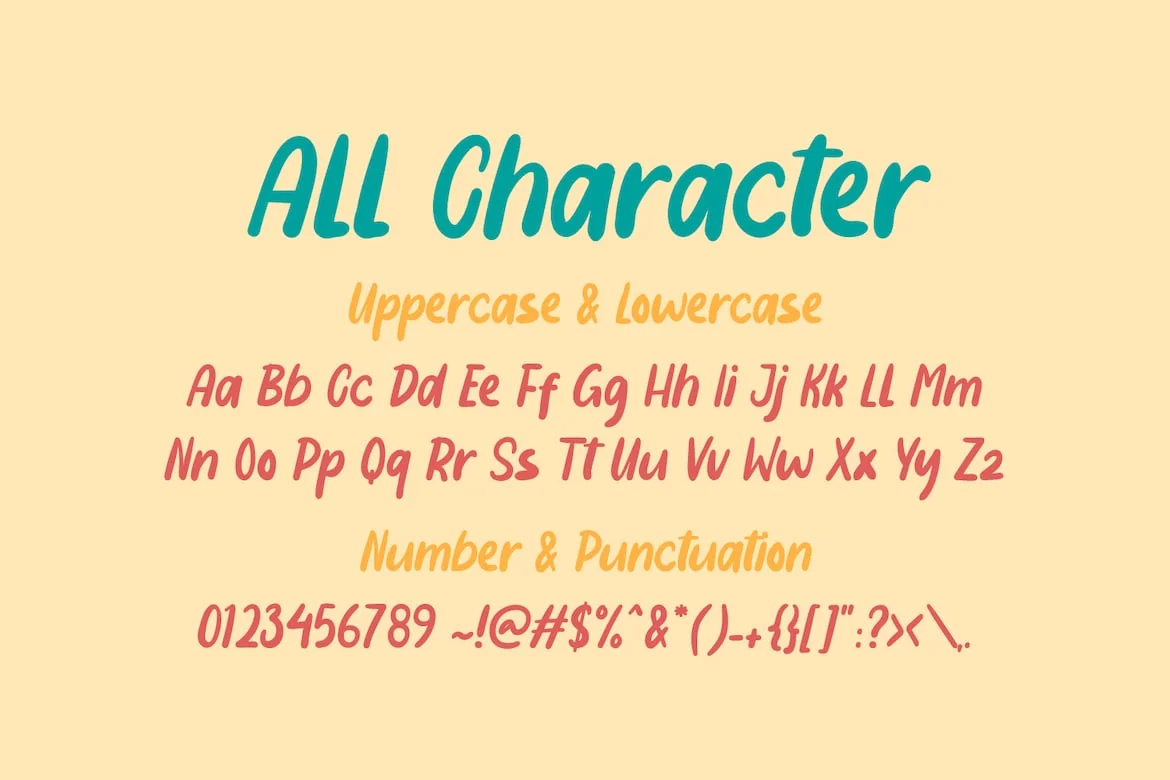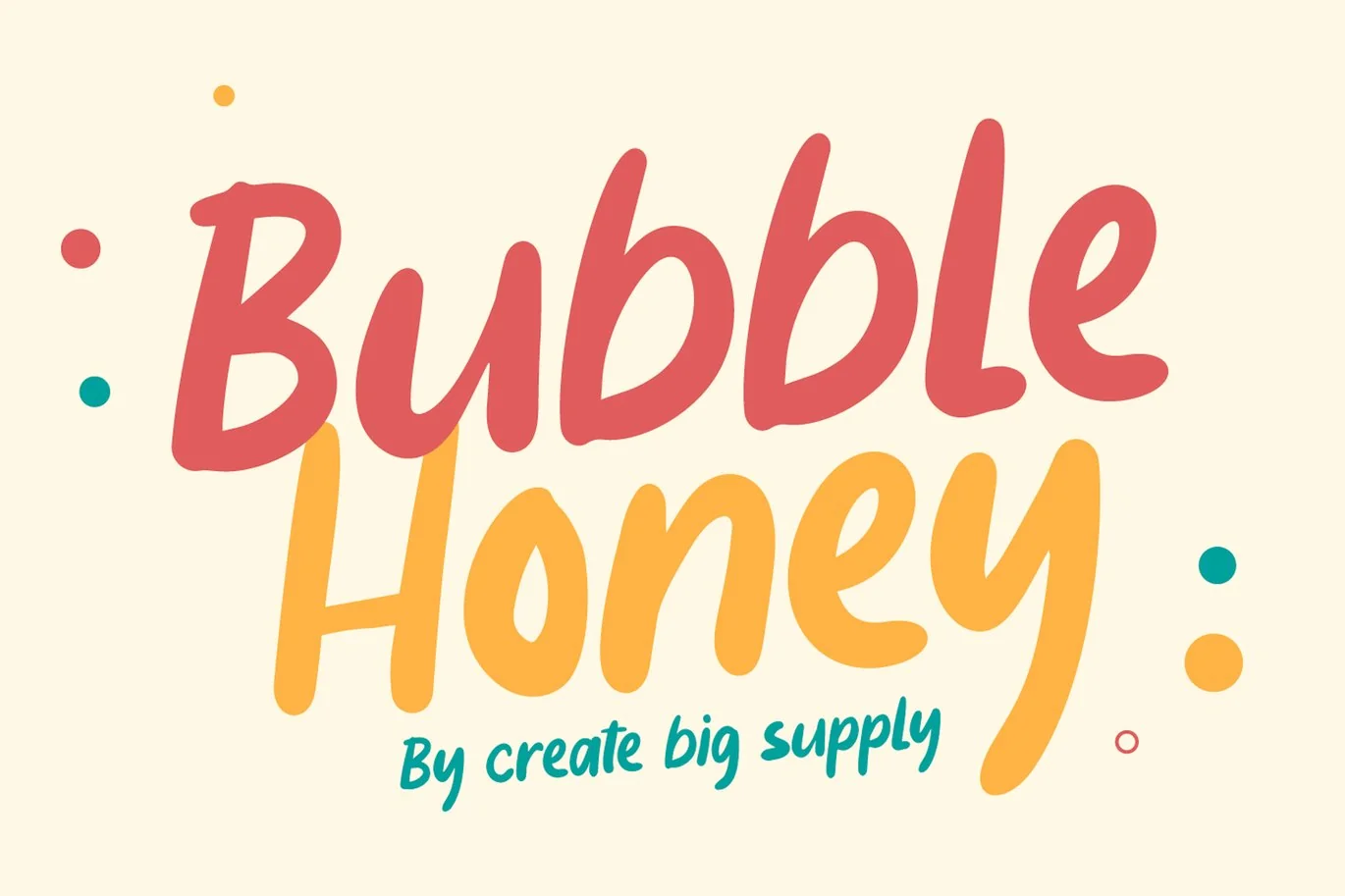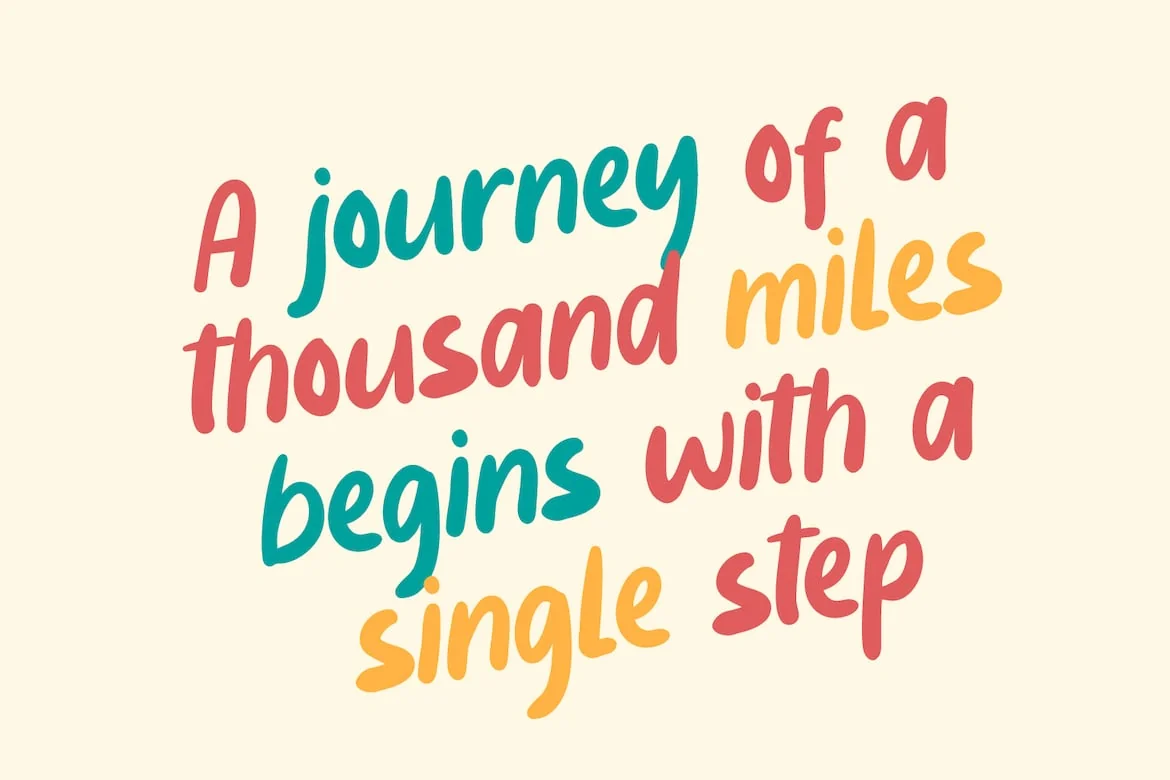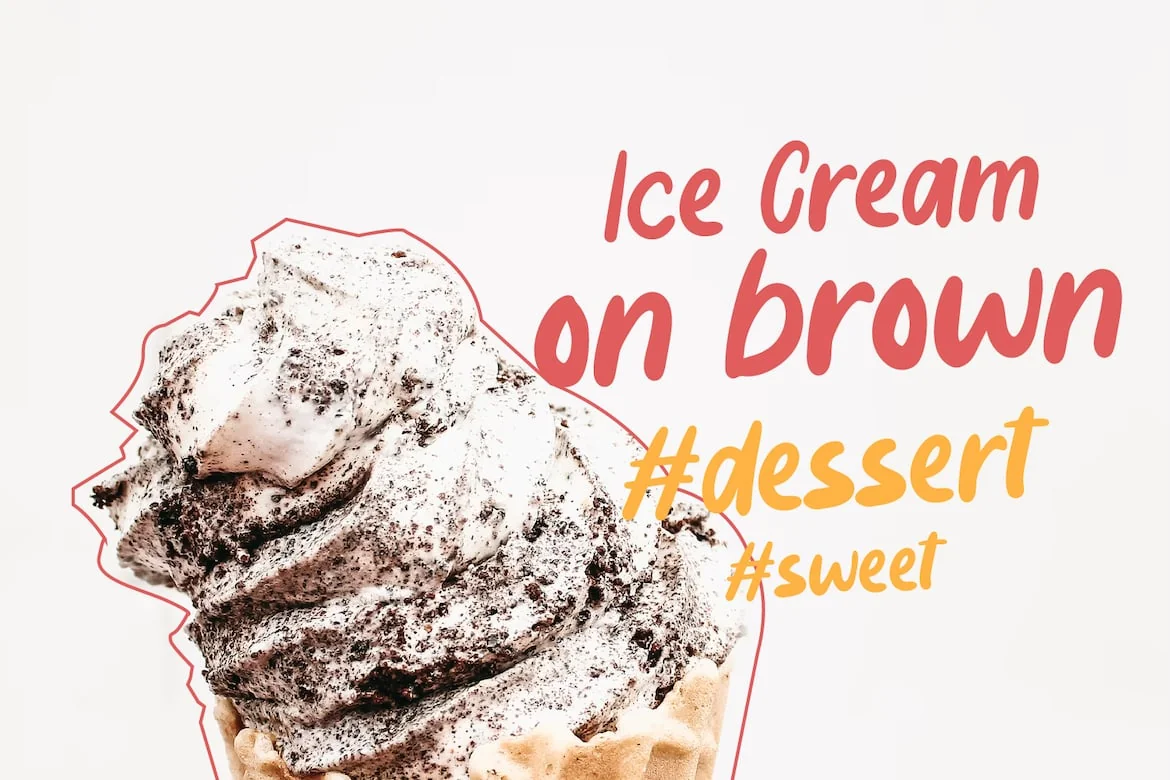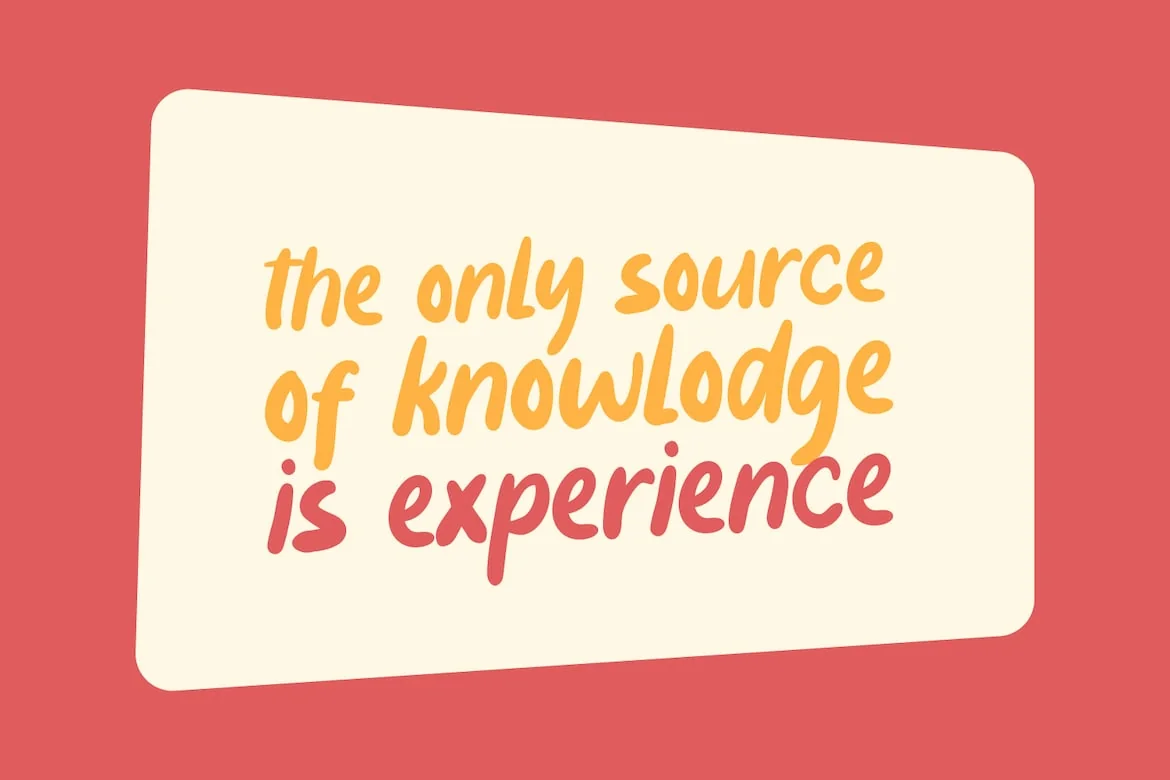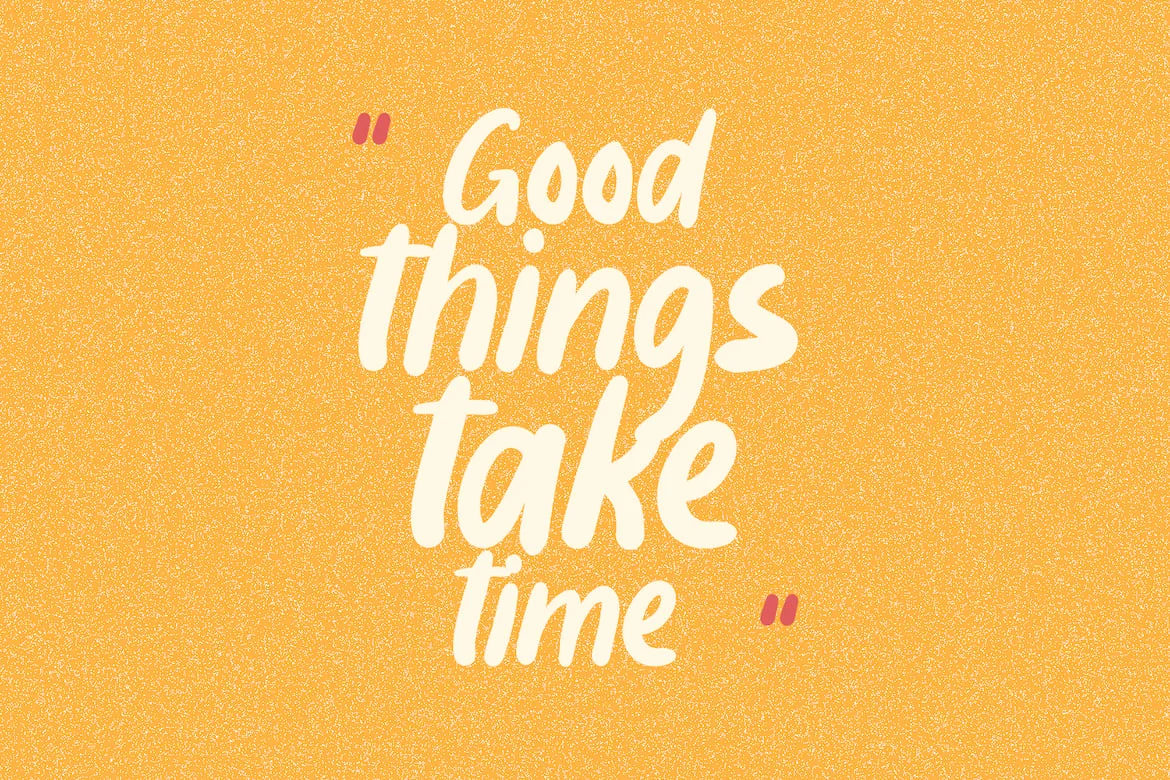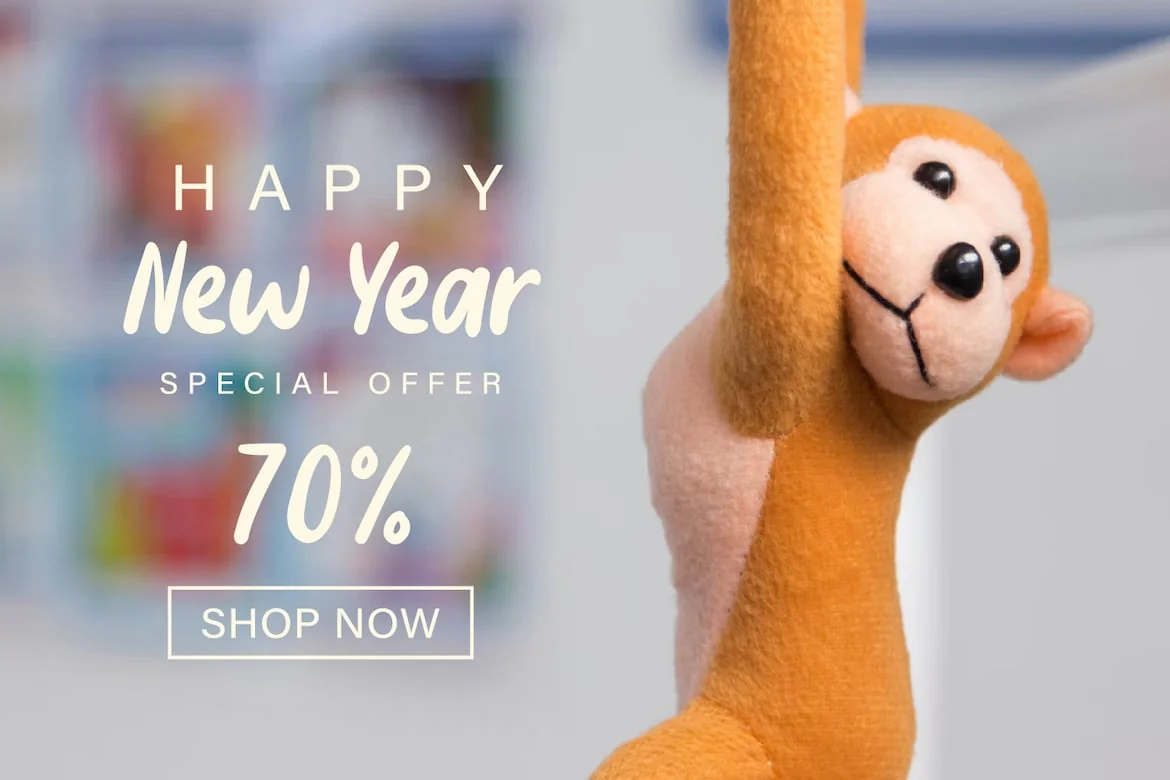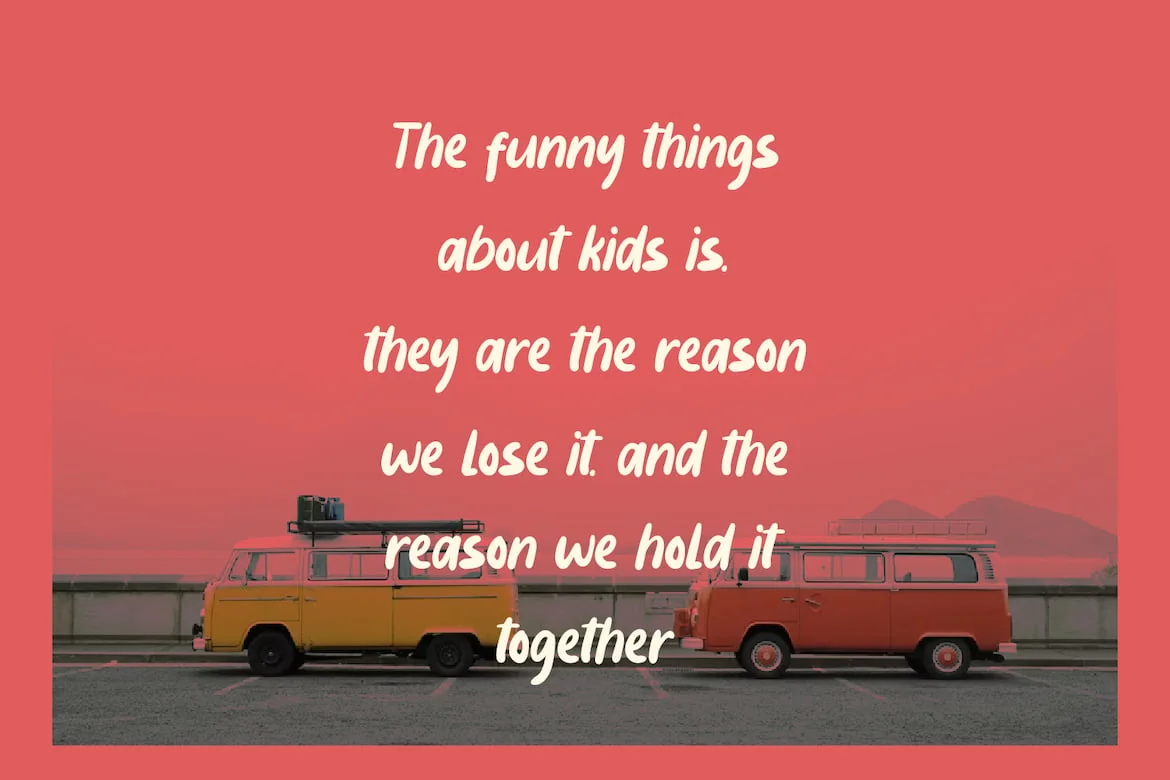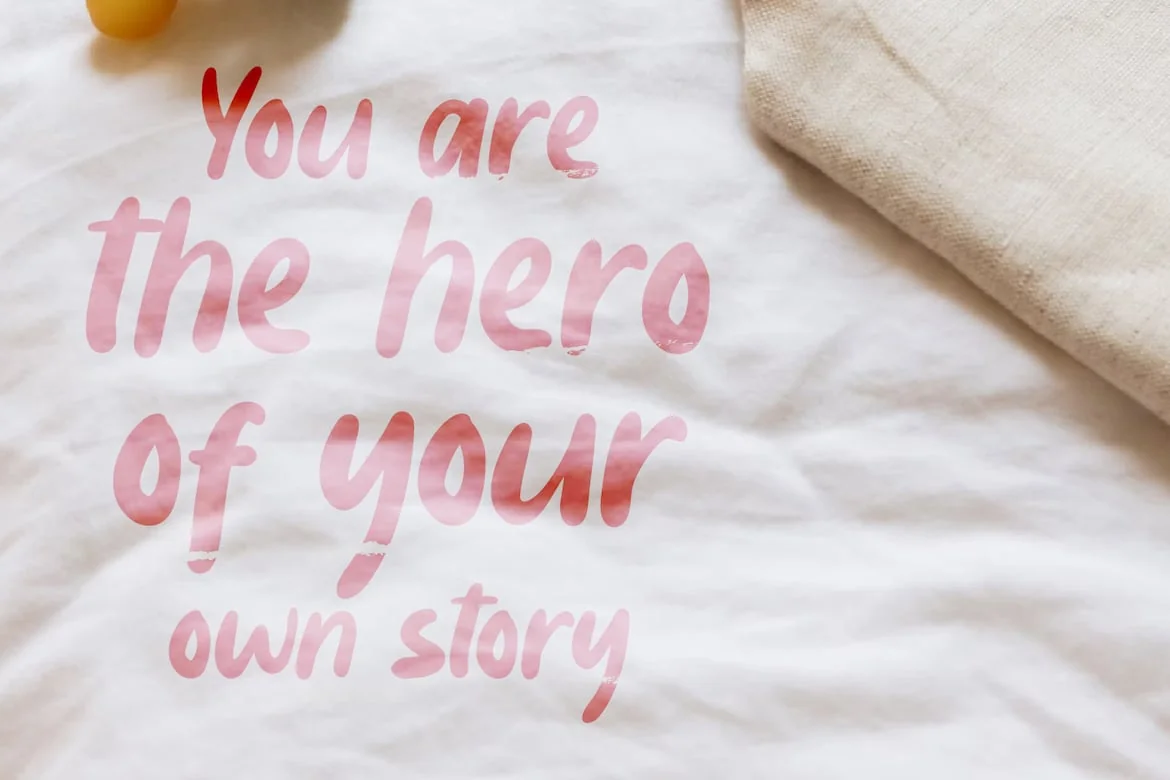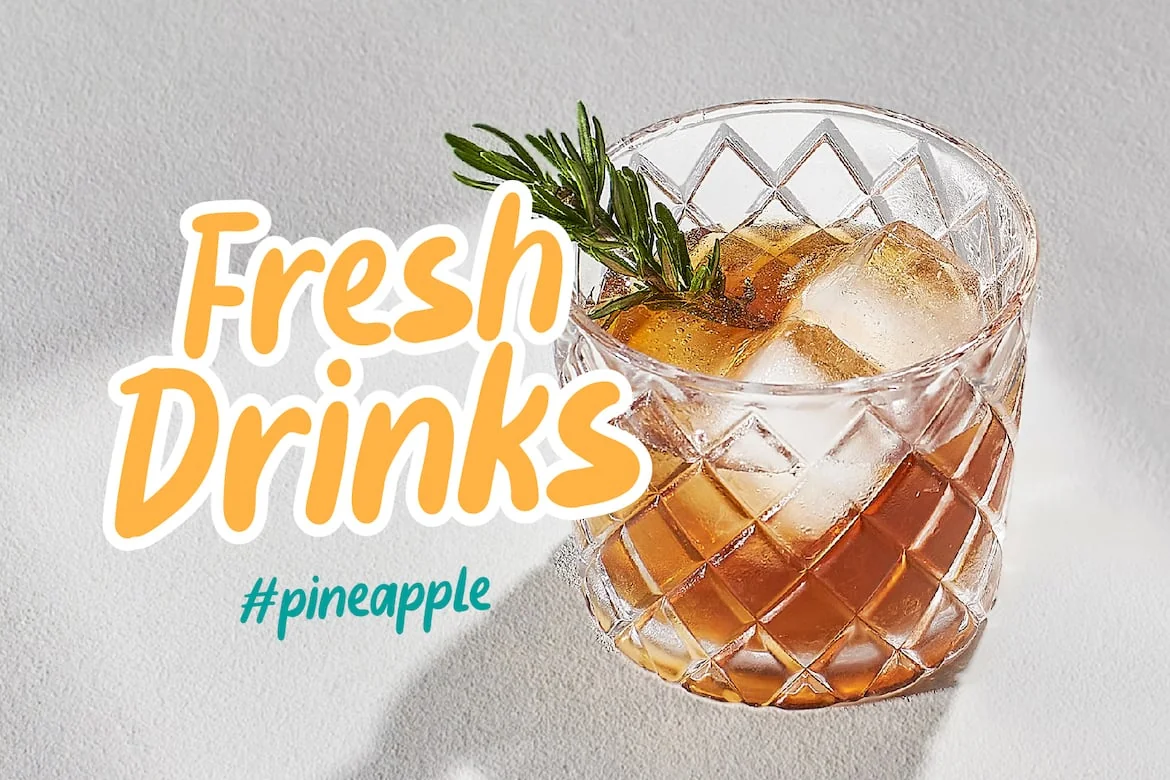
Bubble Honey – Playful Fonts
Bubble Honey Font is a cute and fun display font. This will add a cheerful, happy touch to your design.\
Features:\
- Uppercase & lowercase
- Numbers and punctuation
Full Character Set
!”#$%&()*+,-./0123456789:;<=>?@ABCDEFGHIJKLMNOPQRSTUVWXYZ[]^_`abcdefghijklmnopqrstuvwxyz{}~ ¡¢£¤¥§¨©ª«®°±²³´¸¹º»¿ÀÂÃÄÅÆÇÈÉÊËÌÍÎÏÑÒÓÔÕÖרÙÛÜÝßàáâãäåæçèéêëìíîïñòóôõö÷øùúûüýÿıŒœŠšŸžˆˇ˚˜–—‘’“”†•‹›€−